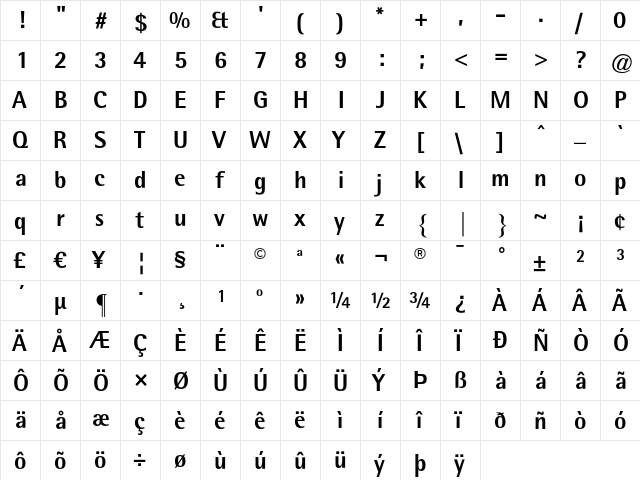
AgfaRotisSemisansExtraBold Regular Font Preview
AgfaRotisSemisansExtraBold Regular
Design Context for AgfaRotisSemisansExtraBold Typeface
AgfaRotisSemisansExtraBold takes a measured approach to typography — its balanced proportions and neutral character make it a reliable workhorse for both digital and print work. The heavy weight commands attention and anchors typographic hierarchies.